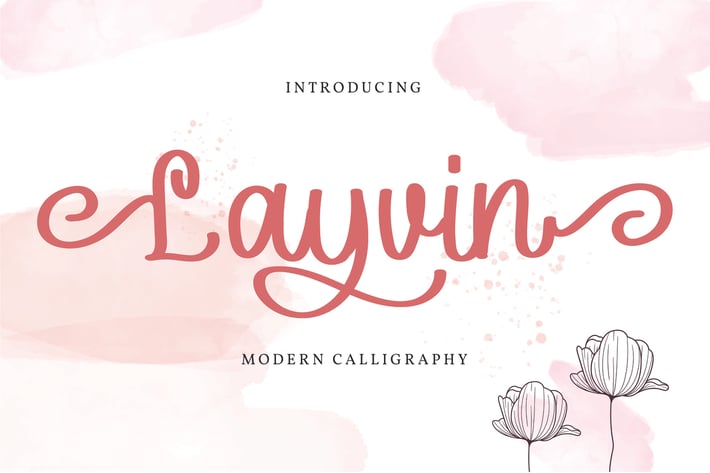
Layvin | Modern Calligraphy Font
Layvin | Modern Calligraphy Font with a calligraphy style, So beautiful on invitation like greeting cards, branding materials, business cards, quotes, posters, and more!